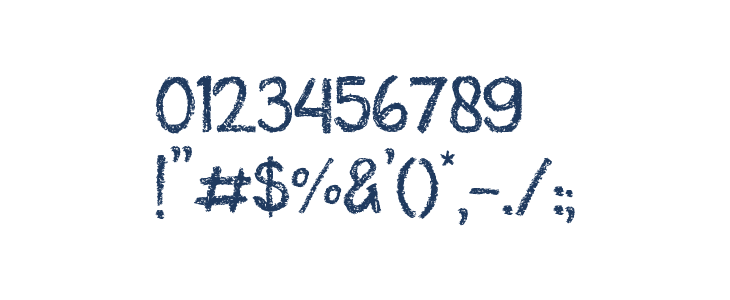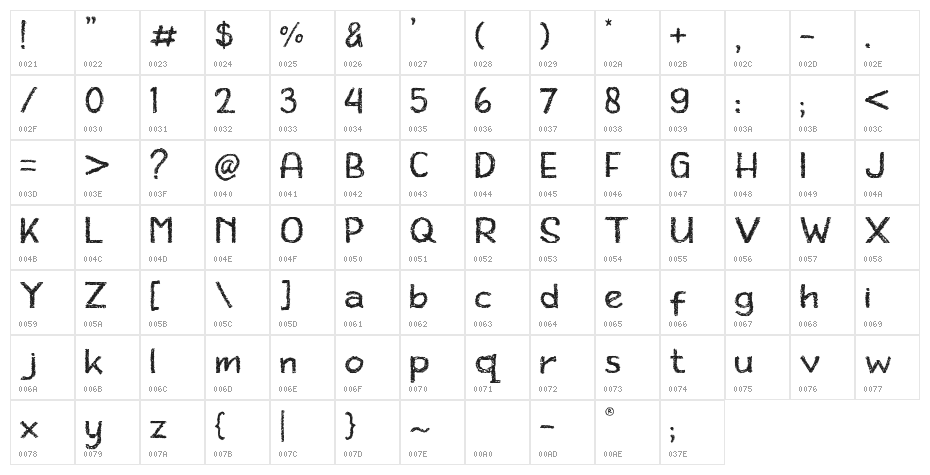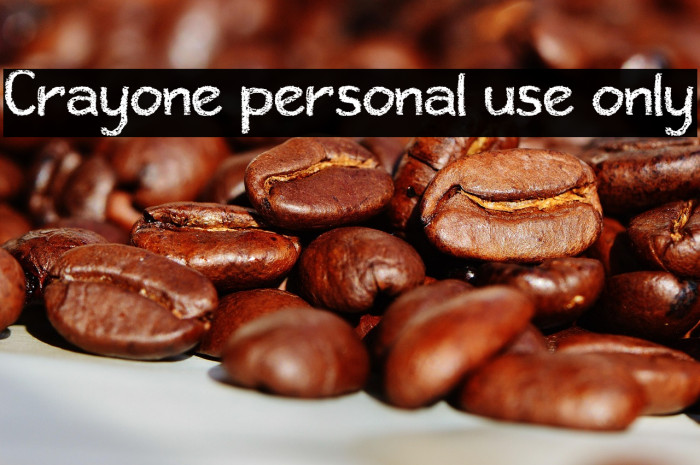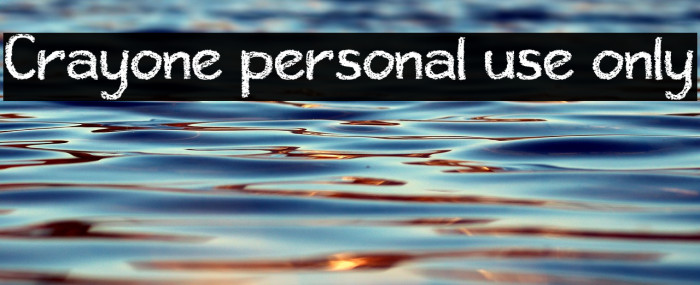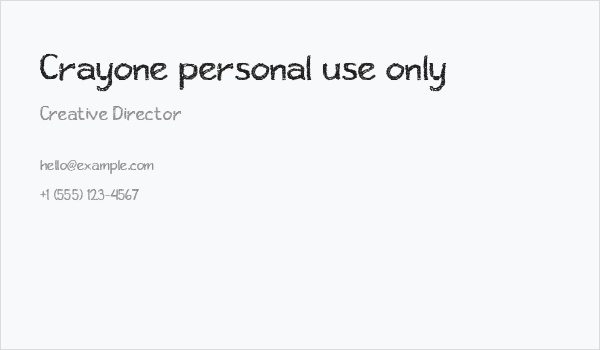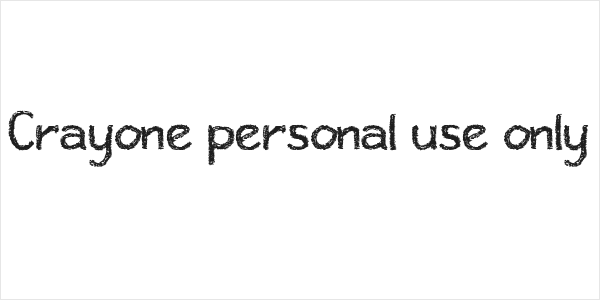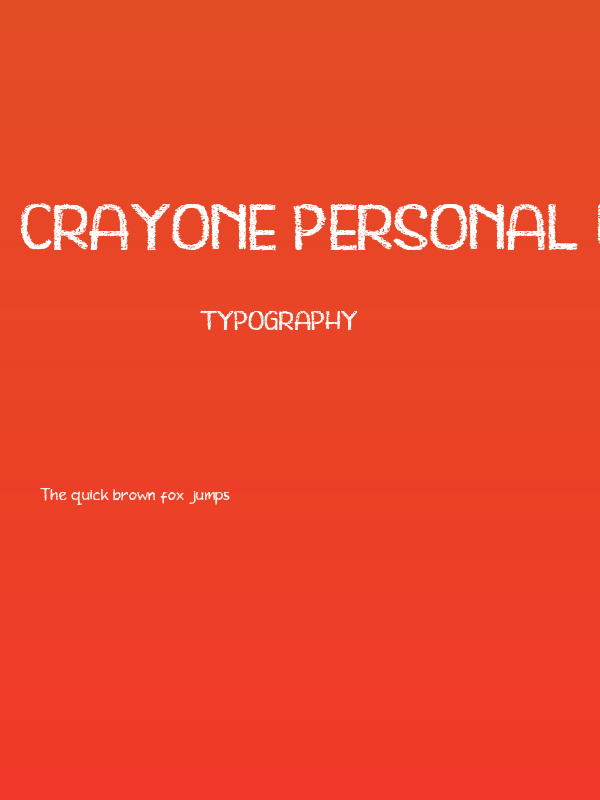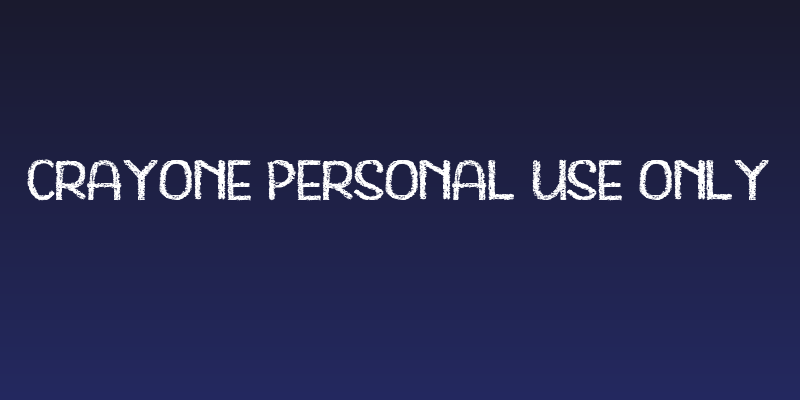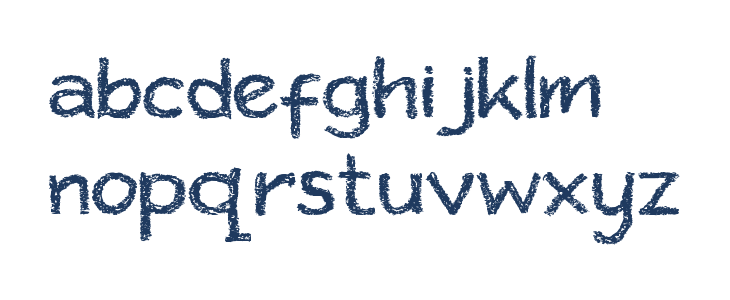
Crayone personal use only Font
Crayone personal use only Description
This playful and textured font mimics the appearance of crayon or chalk writing, giving it a hand-drawn and whimsical feel. The characters are slightly irregular, adding to the casual and informal style. The strokes are uneven, with a rough texture that suggests a tactile, artistic quality. This font is highly legible, with clear distinctions between each letter, making it suitable for creative projects that require a personal touch. The uppercase and lowercase letters are well-balanced, and the numbers and special characters maintain the same playful aesthetic.
| Proposed Projects | Ideal for children's books, educational materials, playful branding, and creative posters. |